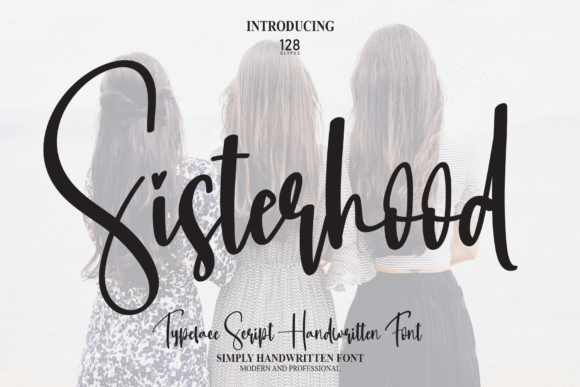
About Sisterhood Font
Sisterhood font is a stylish and dainty script font that exudes elegance and charm with every stroke. Crafted to perfection, it is the ideal choice for a wide range of projects, including logos, branding endeavors, labels, photography, watermarks, special events, and any other project that calls for a touch of beautiful script.
With its delicate lines and graceful curves, Sisterhood font adds a sense of sophistication to any design it graces. Whether adorning a logo or enhancing the branding of a product, its timeless appeal ensures a captivating visual presence.
Branding projects come to life with Sisterhood font, as it effortlessly captures the essence of a brand’s identity. Its dainty script lends a unique and memorable touch, setting brands apart in a crowded marketplace.
Labels adorned with Sisterhood font exude a sense of luxury and refinement, making products stand out on the shelf. Its stylish aesthetic enhances packaging design, captivating consumers and leaving a lasting impression.
In the realm of photography, Sisterhood font adds a romantic flair to watermarks and captions, elevating the overall presentation of images. Its versatility allows it to complement a variety of styles and themes, from weddings to lifestyle shoots.
Special events become even more memorable with Sisterhood font, as it infuses invitations, signage, and other materials with an air of sophistication. Its dainty script conveys a sense of elegance and charm, setting the tone for a truly unforgettable occasion.
Whether used for professional projects or personal endeavors, Sisterhood font brings a beautiful script taste to any design. Its versatility and timeless appeal make it a go-to choice for designers and creatives seeking to add a touch of elegance to their work.